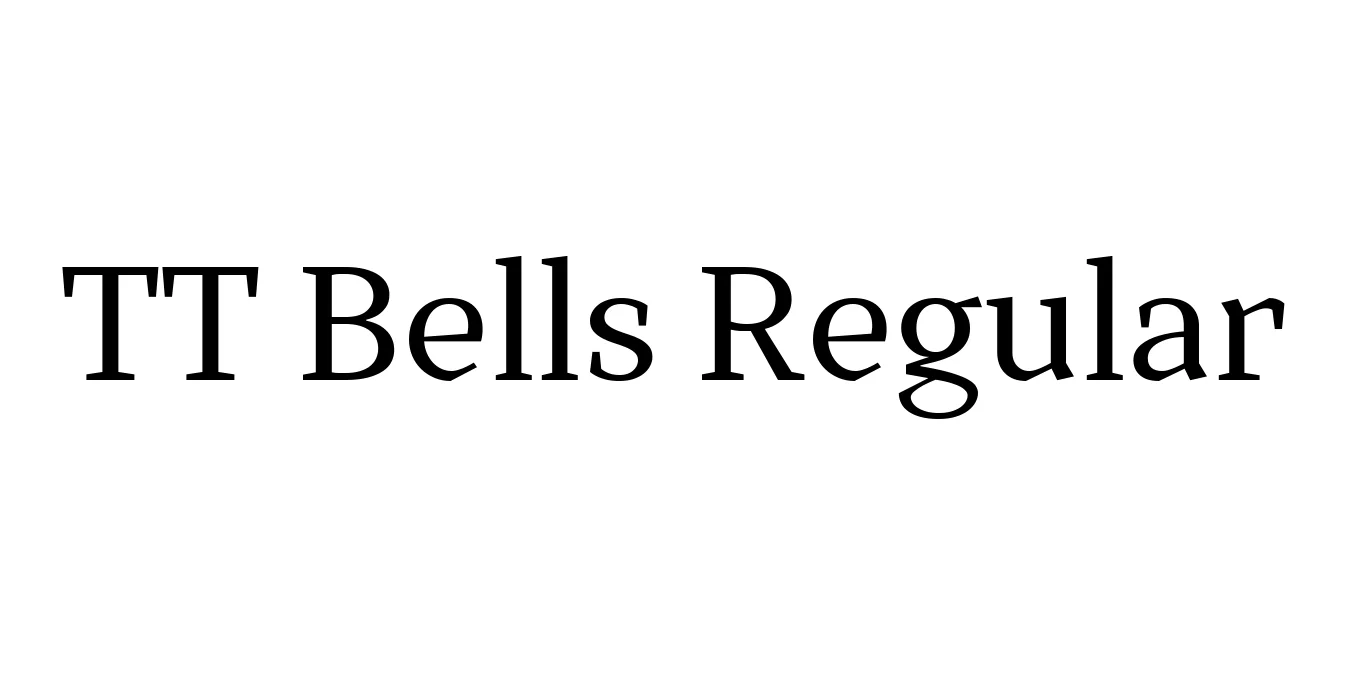
TT Bells Regular
Designed by TypeType Team
TT Bells Regular is a sophisticated and elegant serif typeface developed by the TypeType Team. This font draws its inspiration from the classical Russian typefaces used in the late 19th and early 20th centuries, re-imagining them for modern design environments. It features a high contrast between thick and thin strokes and is characterized by its distinctive triangular serifs, which provide a sharp, clean aesthetic that balances historical charm with contemporary precision.
The typeface is meticulously crafted with a large x-height and open apertures, ensuring that it remains highly legible across various media, from printed books to high-resolution digital screens. Its narrow proportions make it an excellent choice for designers working with limited horizontal space, while its refined silhouette adds a touch of luxury and academic prestige to any project it is applied to.
TT Bells Regular Best Uses
Perfect for magazine headlines and sophisticated layout body text.
Ideal for high-end fashion logos and premium product packaging.
Excellent for literary fiction and historical non-fiction titles.
Adds a professional and authoritative tone to website landing pages.